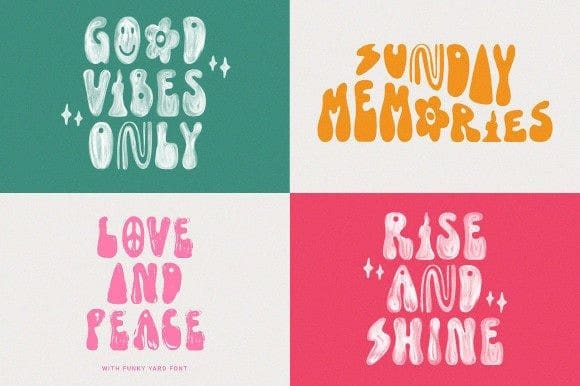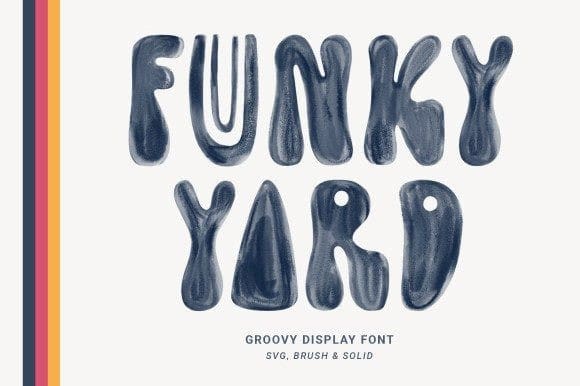
Funky Yard Font
Funky Yard Font is a fun, groovy display font. Its whimsical and quirky style is perfect for creating unique retro designs with a modern twist.